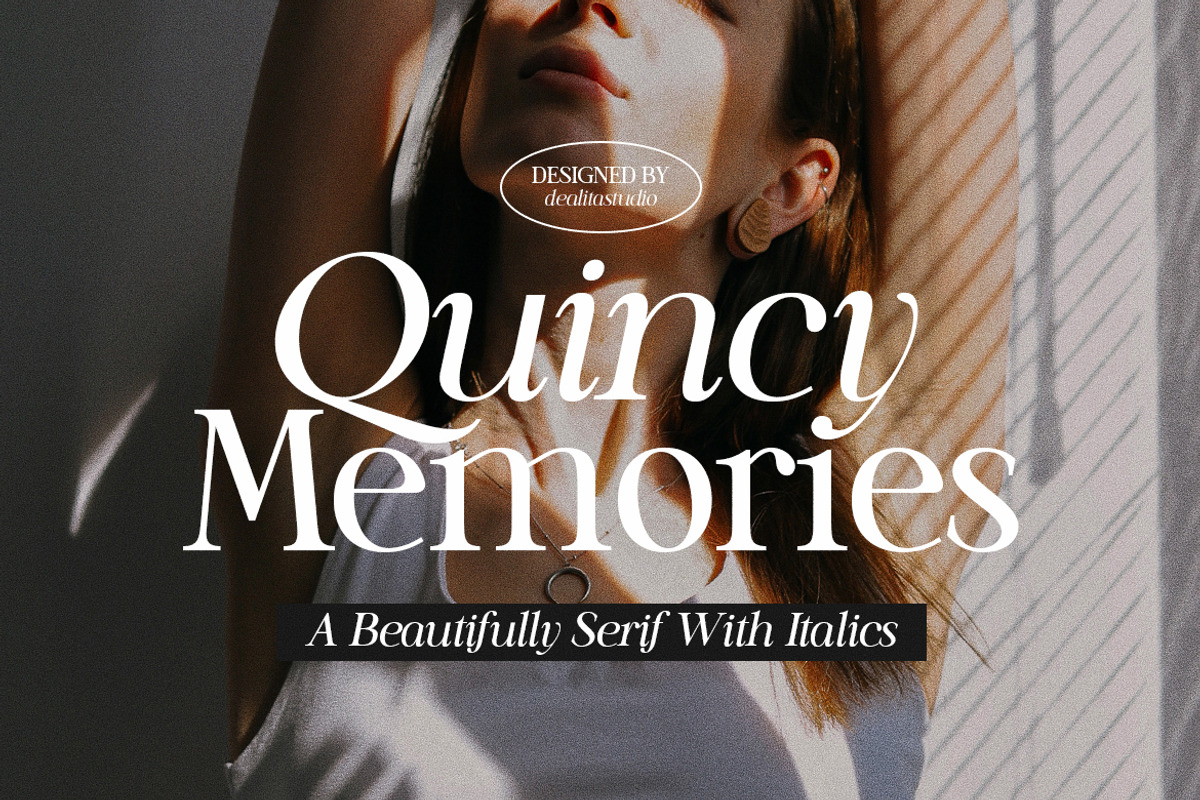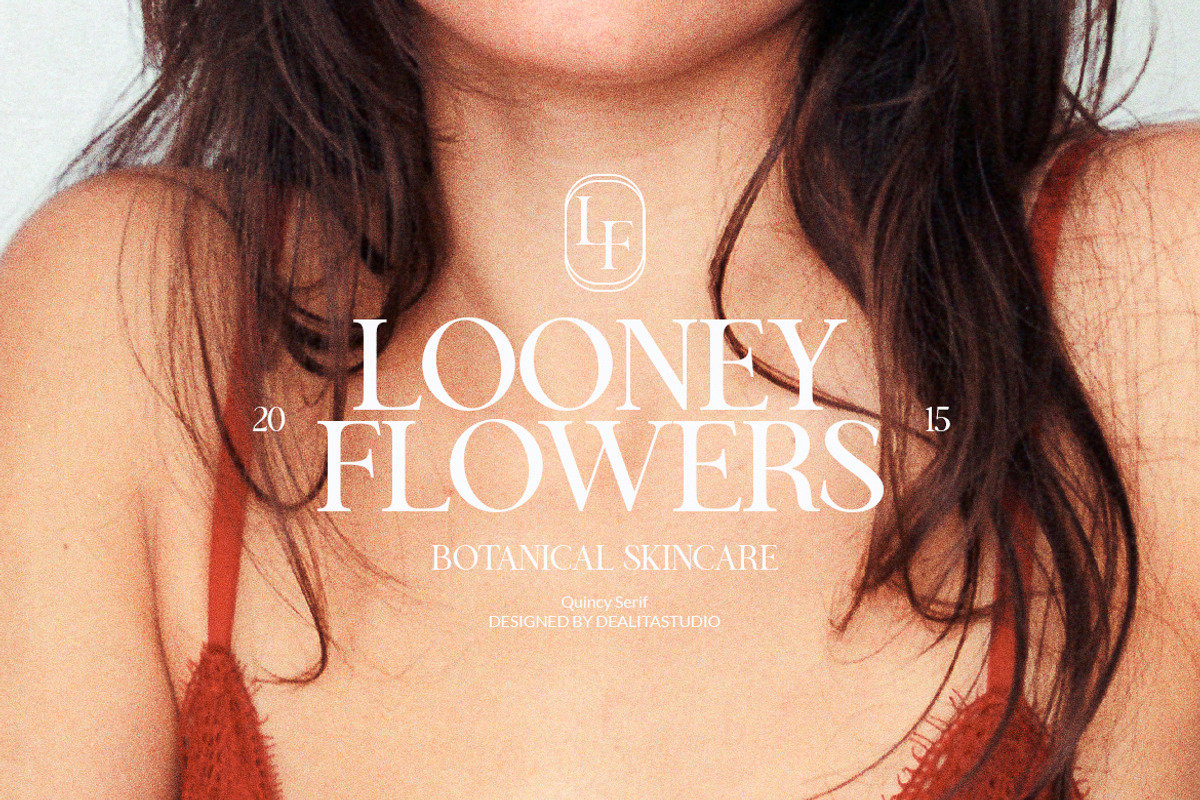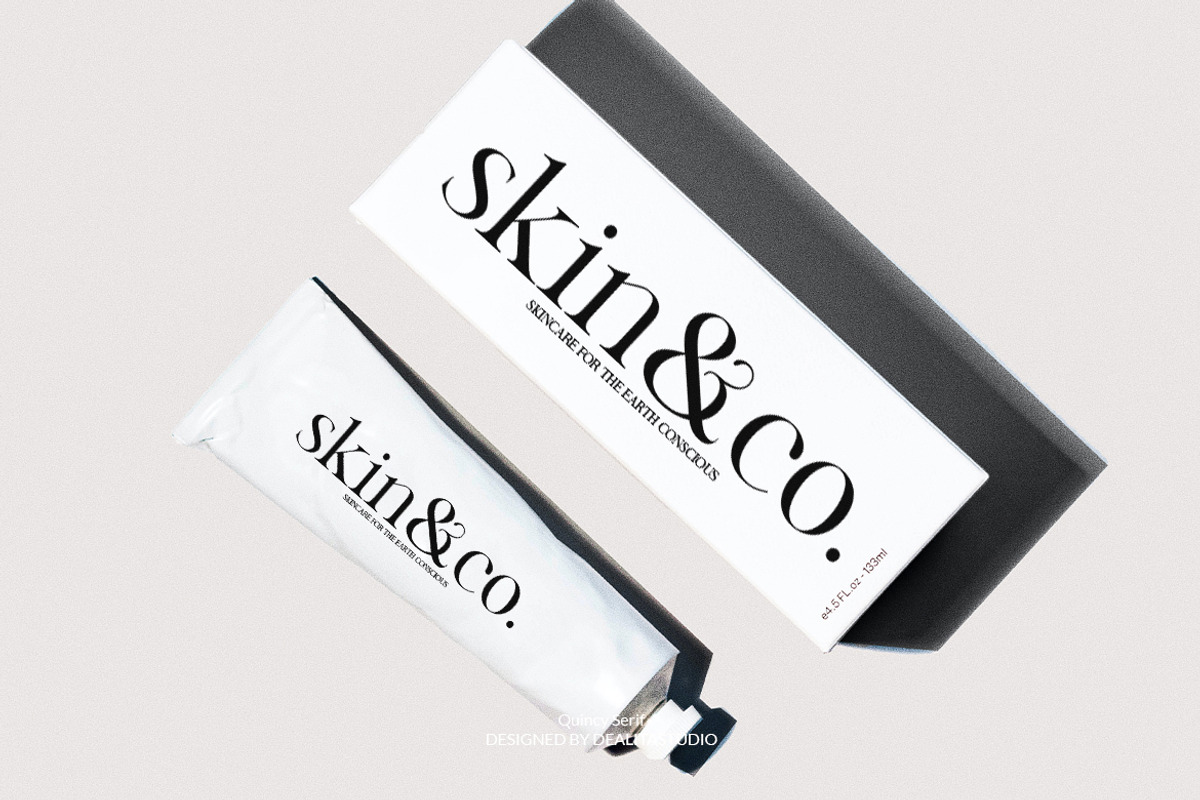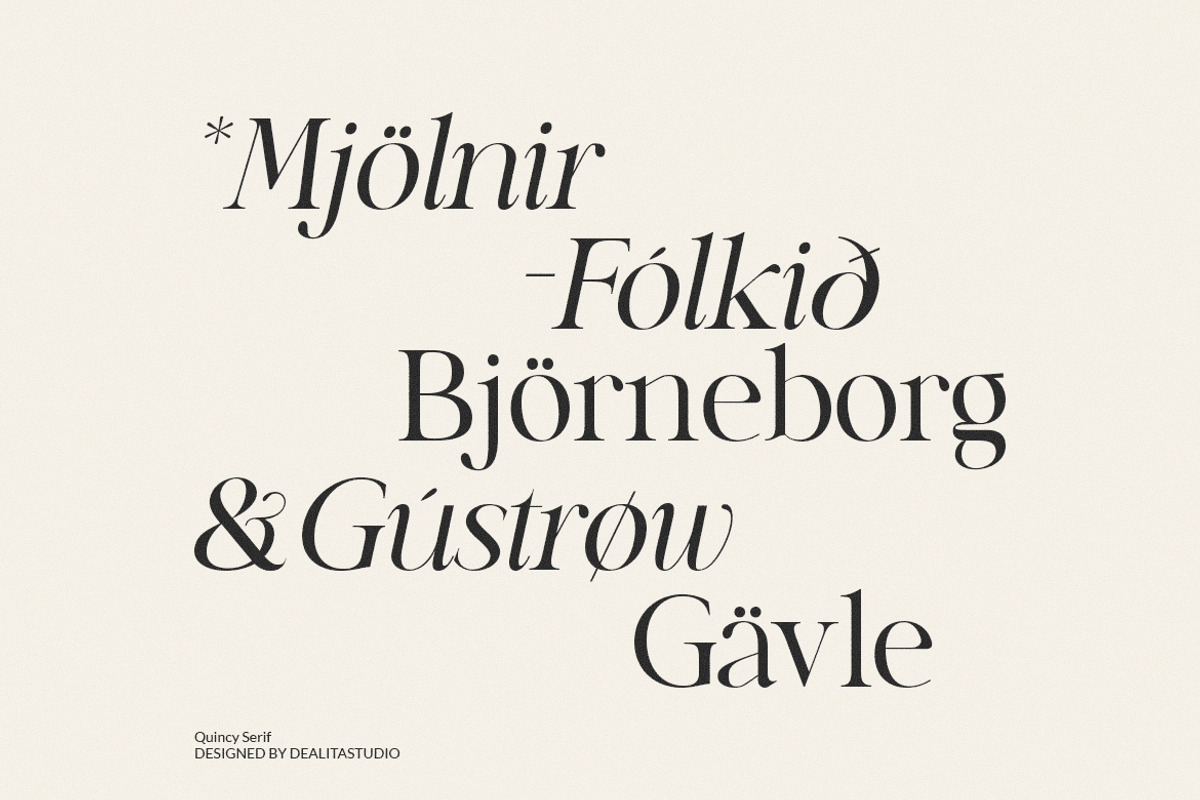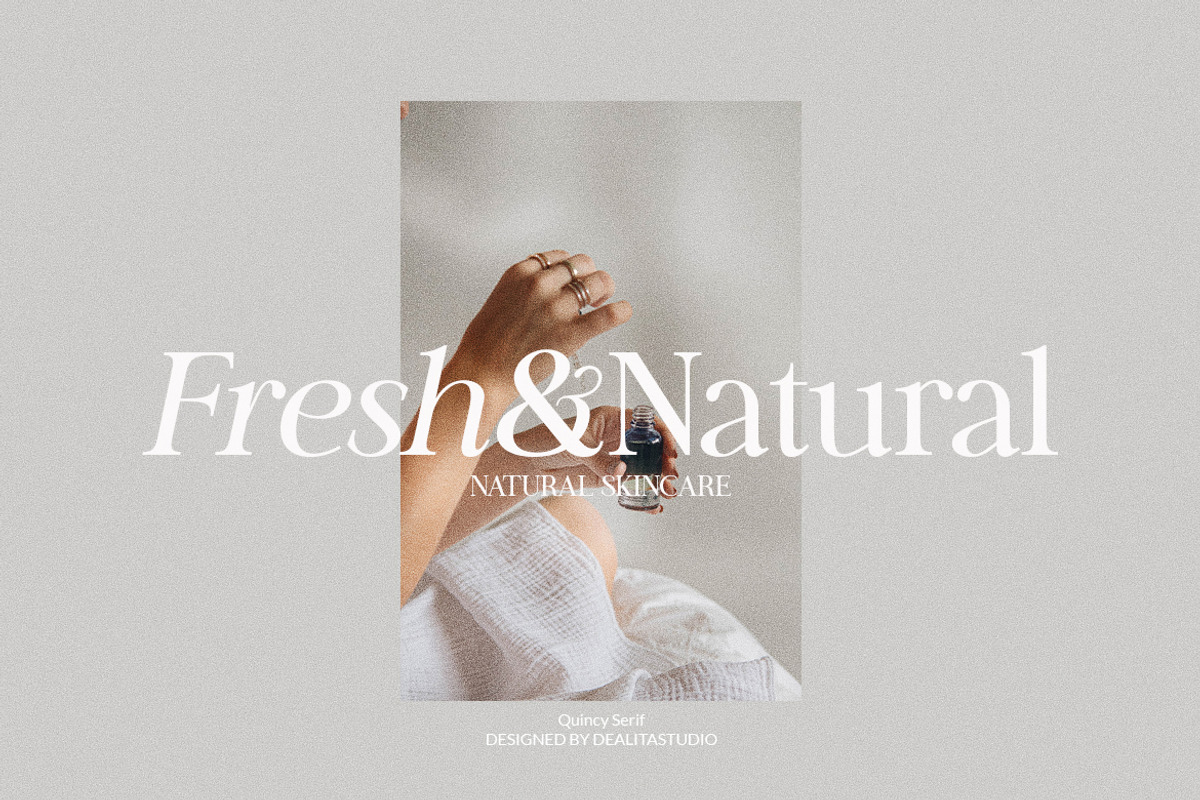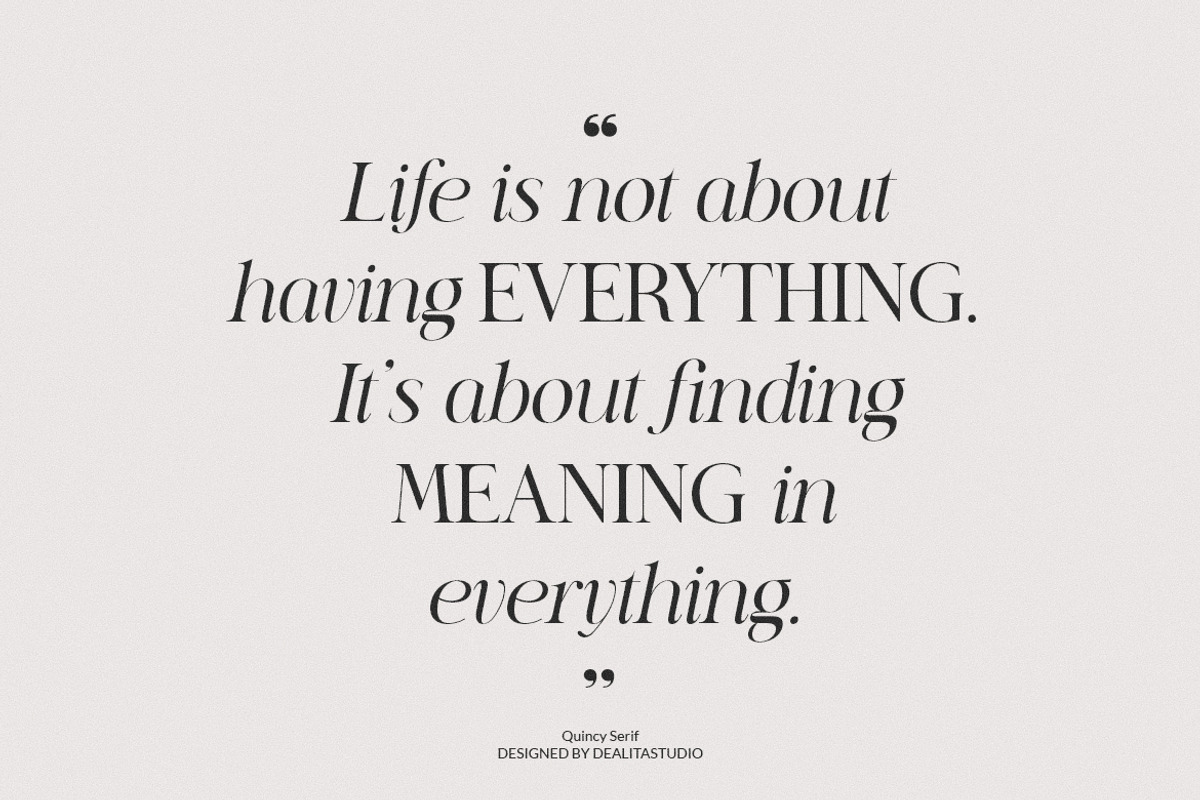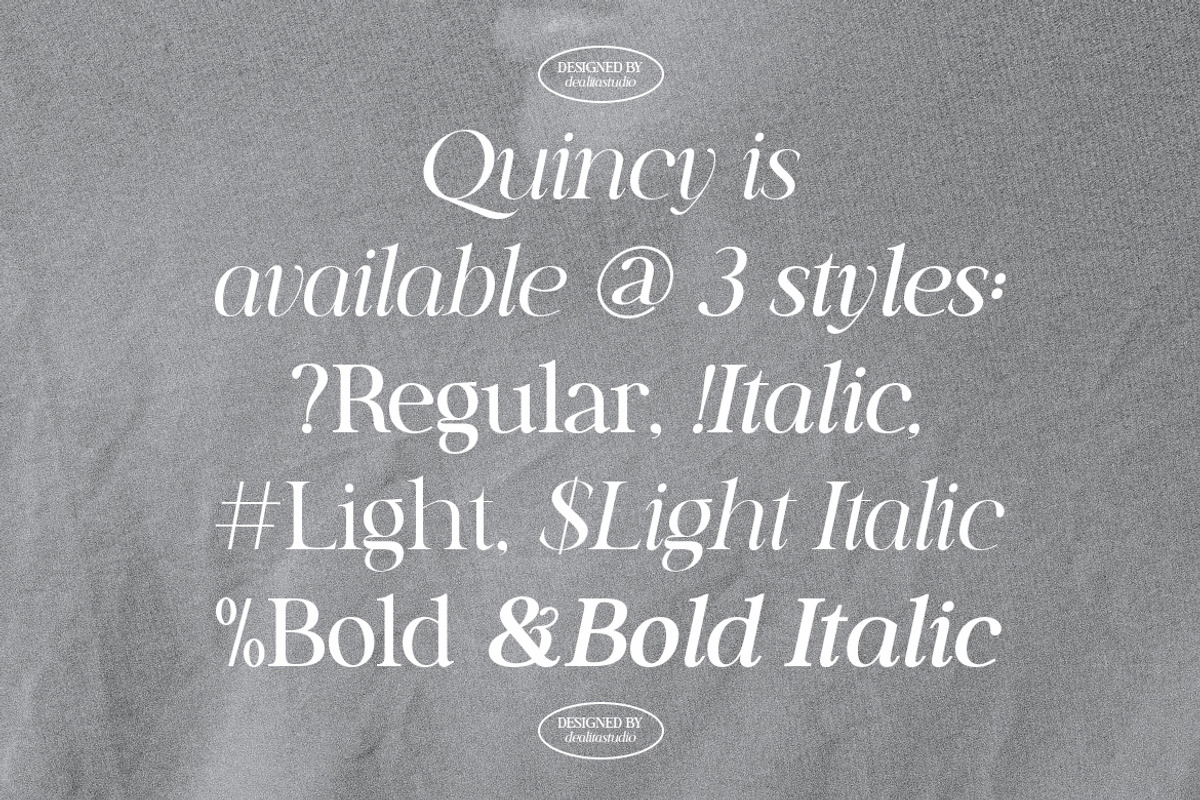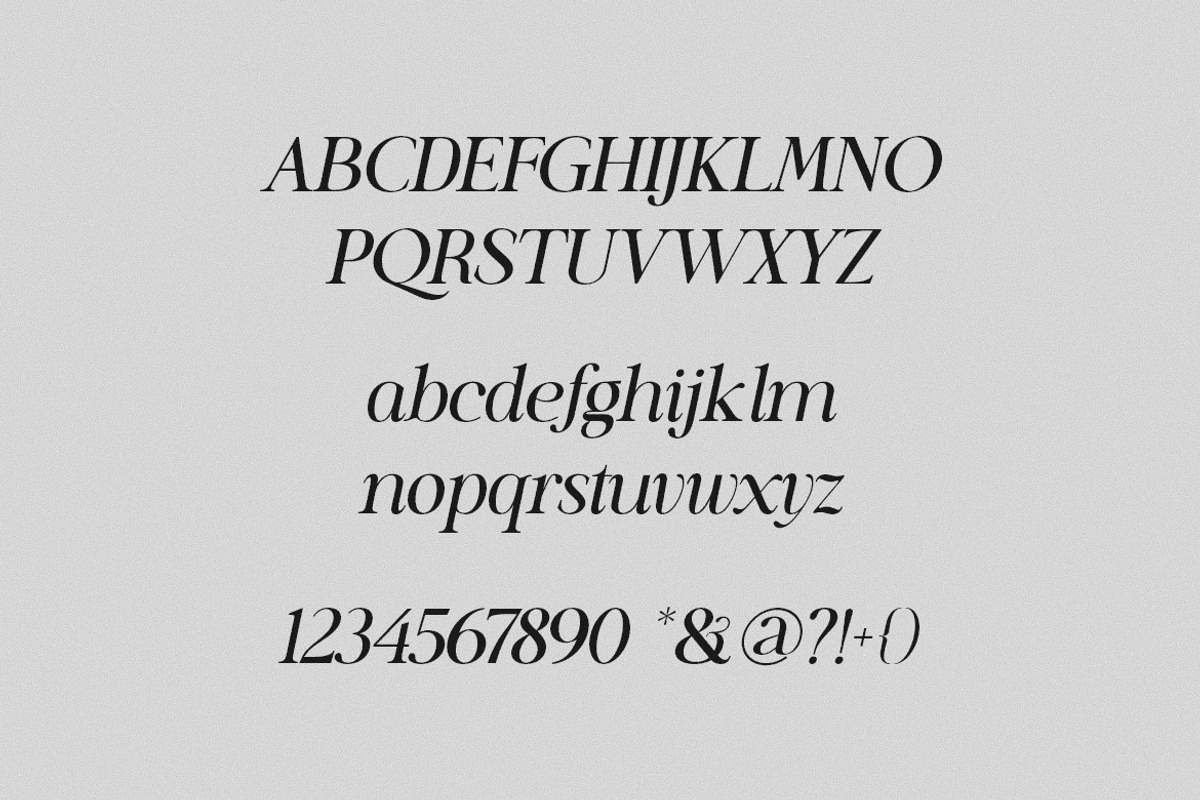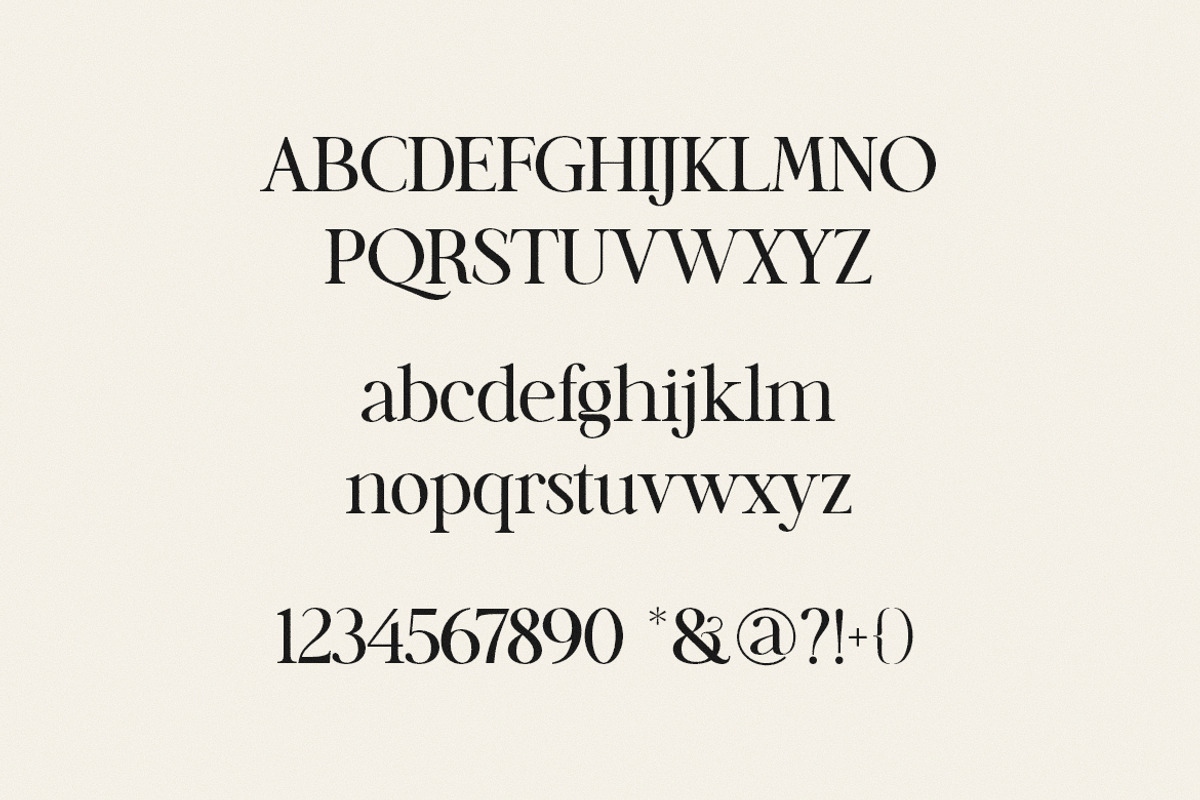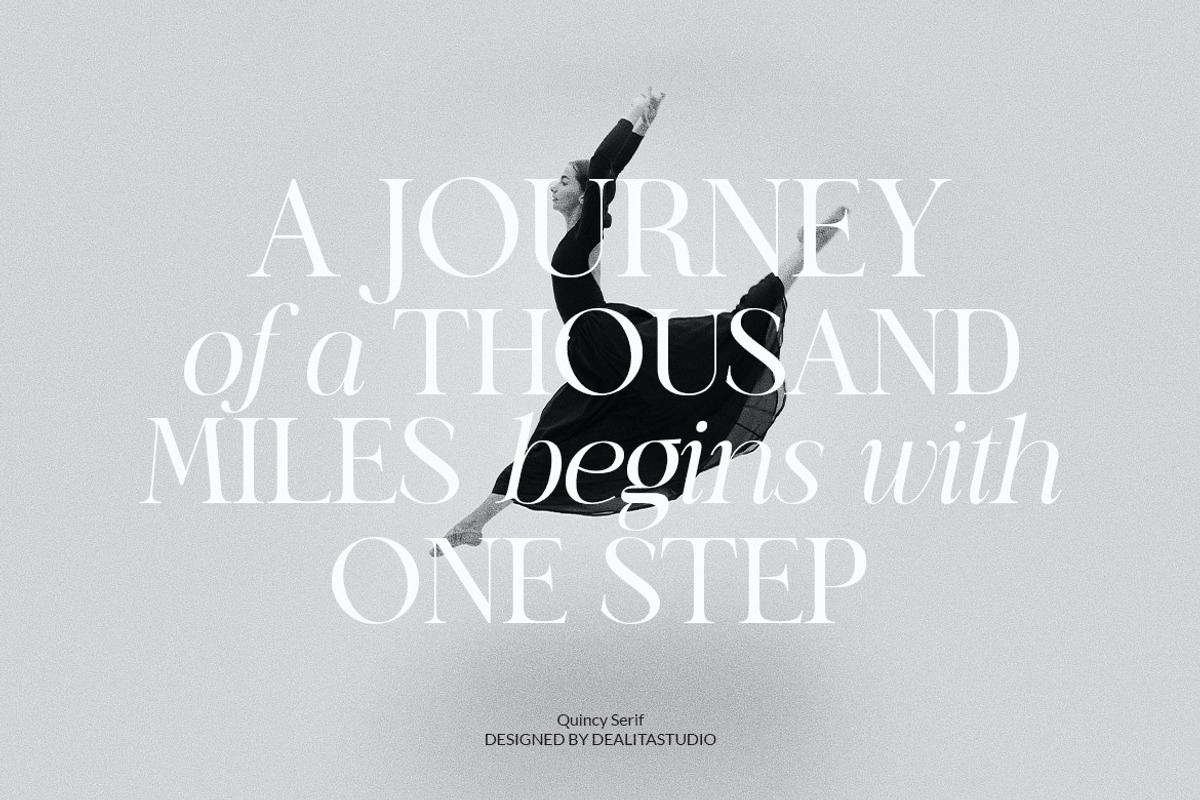
Quincy Serif
Quincy Serif is a Beautiful serif typeface With Italics. Ideally to be applied to other various formal forms such as invitations, labels, logos, magazines, books, greeting/wedding cards, packaging, fashion, makeup, stationery, novels, labels or any advertising purpose.
- Regular & Italic style
- lowercase uppercase
- Foreign language support
Language Support : Danish, English, Estonian, Filipino, Finnish, French, Friulian, Galician, German (Switzerland), Gusii, Indonesian, Irish, Italian, Low German, Luxembourgish, Norwegian Bokmål, Norwegian Nynorsk, Nyankole, Oromo, Portuguese, Romansh, Rombo, Spanish, Swedish, Swiss German.